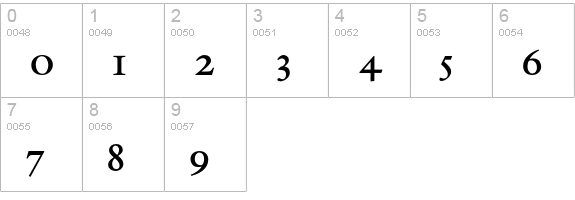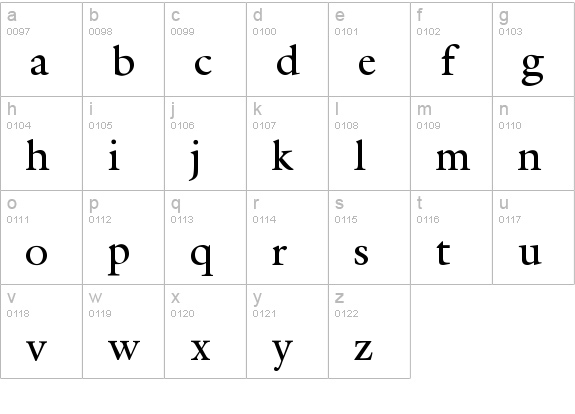
GalliardRoman Font Details
GalliardRoman is a stunning, timeless font that exudes elegance and sophistication. With its graceful curves and delicate serifs, this typeface effortlessly captures the essence of classical typography while adding a modern twist. Its clean, legible design makes it perfect for a wide range of applications, from luxurious print materials to high-end branding. What sets GalliardRoman apart is not just its exquisite aesthetics, but also its accessibility. This font is available for free, allowing users to effortlessly add a touch of refinement to their projects without breaking the bank. Whether you're a professional designer or a creative hobbyist, GalliardRoman offers a wealth of possibilities at no cost. To make this font even more convenient, it can be easily downloaded from FontsMarket.com. This reputable online platform provides a vast collection of fonts, and GalliardRoman is just one of the many gems available. By visiting FontsMarket.com, users can freely access this font, ensuring that they have the tools they need to bring their creative visions to life. In conclusion, GalliardRoman is a free font that combines classic elegance with modern versatility. With its timeless design and effortless legibility, it is a go-to choice for anyone looking to elevate their projects. Download your copy of GalliardRoman today at FontsMarket.com and discover the endless possibilities it offers.